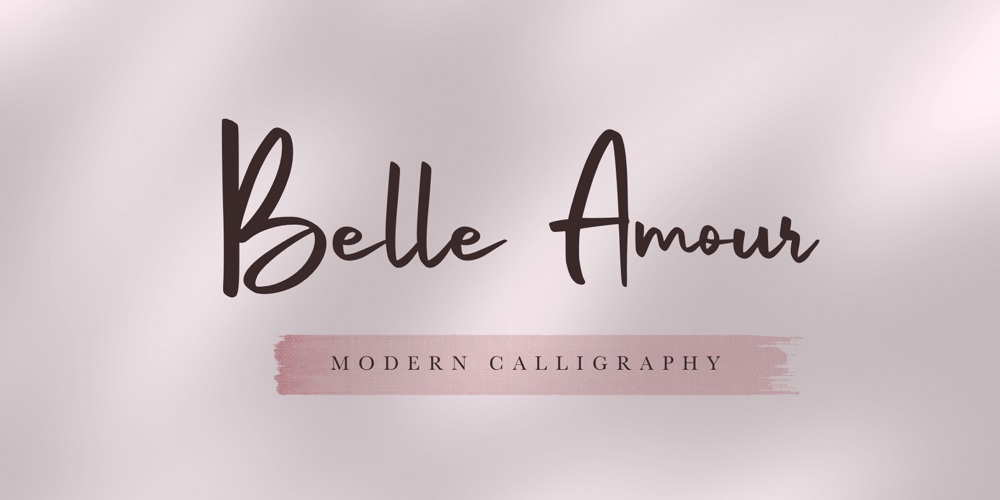
Belle Amour Font Family was designed by Trio Nazzar Saputra, Wahyu Hadi Yuana and published by Craft Supply Co. Belle Amour contains 2 styles and family package options. Belle Amour – Modern Calligraphy is an handwritten script font based on the expression of real handwriting. Cattus – Modern Casual Script will work perfectly for fashion, e-commerce brands, trend blogs, wedding boutiques or any business that wants to appear upscale and chic.